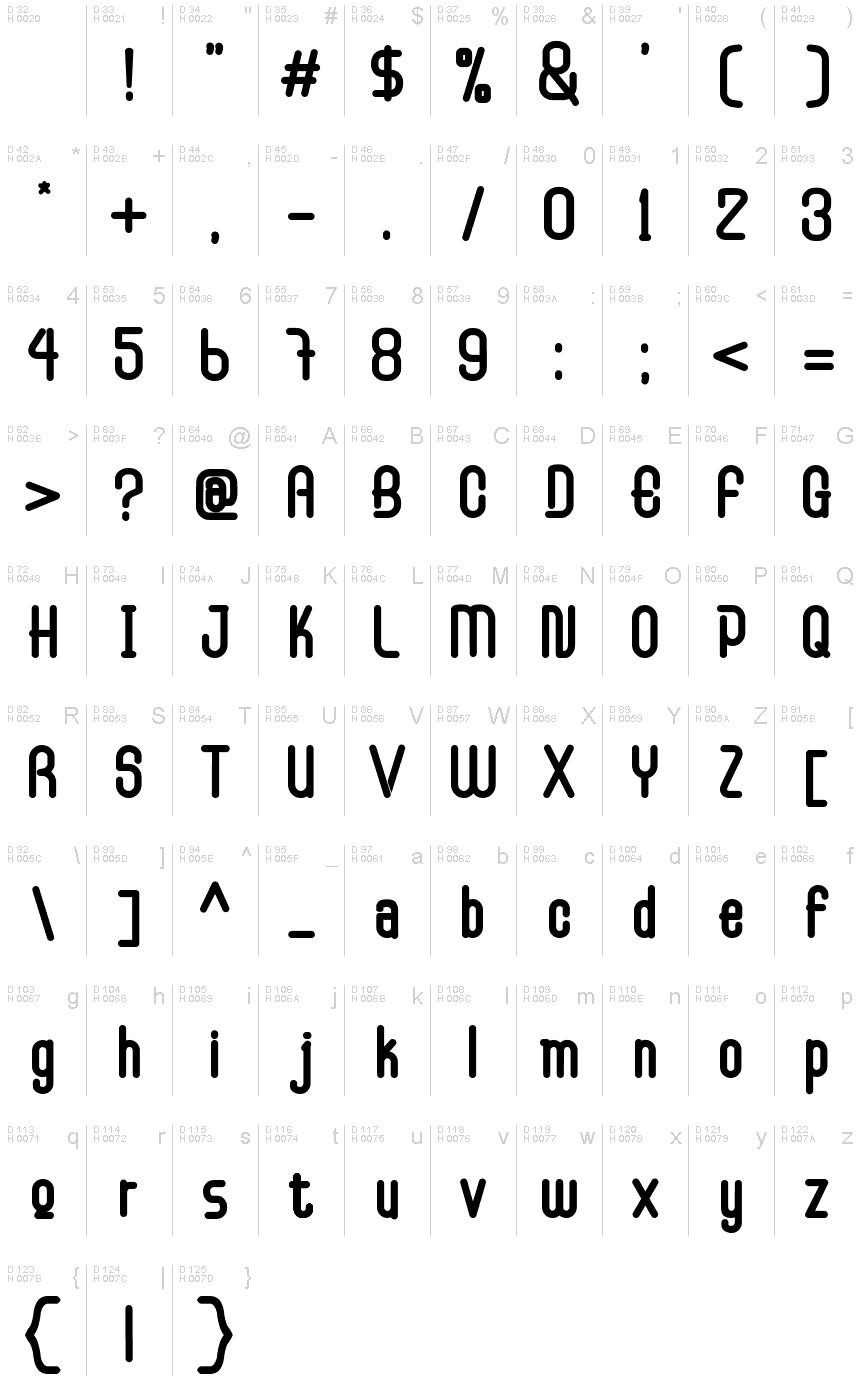
displaying
Displaying font is a condensed round sans serif typeface designed by Artoholic artwork studio.
we now just launch our newest product called Quickkly font ,this font is very suitable for logo ,watermark,clothing product,magazine ,businiss card,poster,mock up everything your product ,will lok like very - very awesome if use this is font.